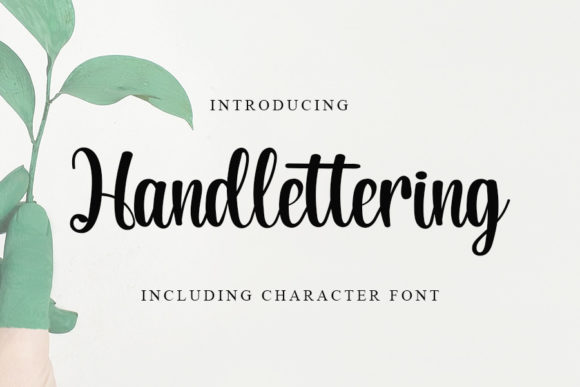
Behold Hand Lettering, the exquisite script font family crafted by Inermedia STUDIO, a masterpiece of contemporary calligraphy that exudes elegance and charm. Its meticulously designed characters dance across the screen with a captivating rhythm, capturing the essence of timeless artistry. Hand Lettering is not just a font; it's a gateway to a world of creative expression, a tool that breathes life into your digital designs.
Immerse yourself in the world of Hand Lettering, where form and function intertwine seamlessly. This font family is a versatile chameleon, adapting effortlessly to a myriad of digital landscapes. Whether you're weaving words on a web page, crafting captivating social media posts, or designing logos that leave a lasting impression, Hand Lettering rises to the occasion with unwavering grace.
Let your creativity flourish as you explore the endless possibilities of Hand Lettering. Its carefully crafted curves and impeccable balance bring a touch of sophistication to any project. Its contemporary elegance elevates your designs, adding a layer of visual intrigue that captivates and enchants.
Hand Lettering is a font that speaks to the soul, evoking emotions and igniting imaginations. Its enchanting characters, reminiscent of a skilled calligrapher's hand, add a personal touch to your digital creations. They're like tiny works of art, each letter a testament to the beauty of human expression.
With Hand Lettering, your designs transcend the ordinary and enter the realm of the extraordinary. It's a font that transforms the mundane into the magical, turning simple words into visual poetry. Let Hand Lettering be your muse, your creative companion as you embark on a journey of digital artistry.